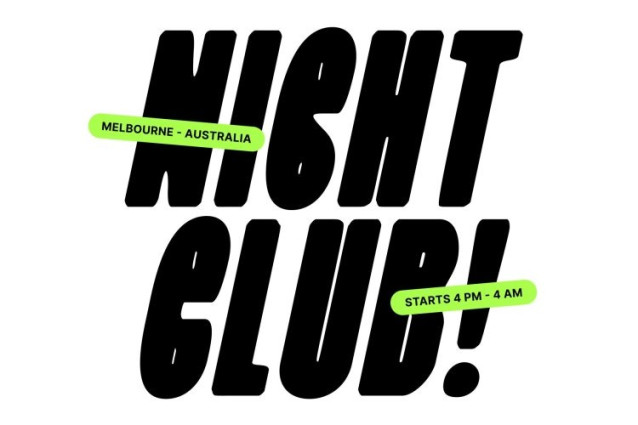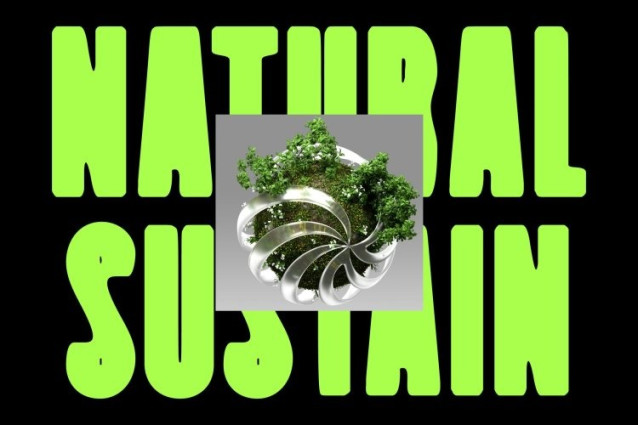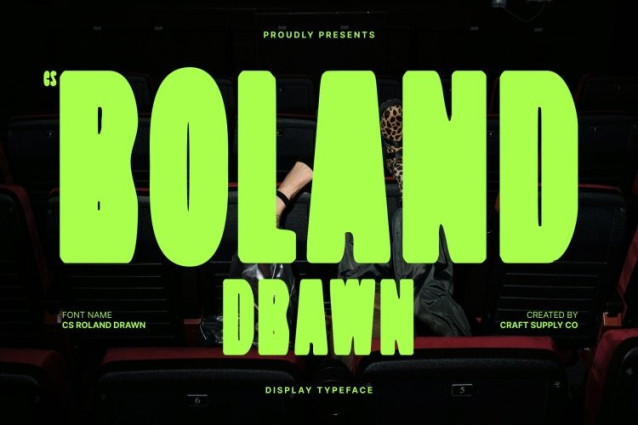
CS Roland Drawn Font
CS Roland Drawn Font This is a modern bold sans serif font built on clean, contemporary foundations and enhanced with a subtle hand-drawn texture. Its strong, well-defined letterforms communicate clarity and confidence, while the drawn effect introduces a natural, human touch that softens the minimalist structure. This balance creates a typeface that feels professional yet expressive.
Clean Structure with Organic Character
The solid construction and even weight ensure excellent readability across print and digital media. At the same time, the hand-drawn details add gentle irregularities that give each character unique personality. This combination allows this font to stand out visually without sacrificing its clean, structured appearance.
Precision Meets Expressive Modernity
Designed to balance functional simplicity with visual impact, this font works equally well for corporate branding and creative design. Its bold form delivers authority and precision, while the handcrafted texture adds warmth and originality making it suitable for designers who want modern typography with a more natural feel.
Versatile Typeface for Contemporary Projects
From branding, posters, and editorial layouts to packaging and digital interfaces, this font adapts effortlessly across applications. Whether used for strong headlines or defining a brand’s visual identity, it offers a bold, modern presence enriched with distinctive, hand-drawn character that feels fresh, confident, and unique.